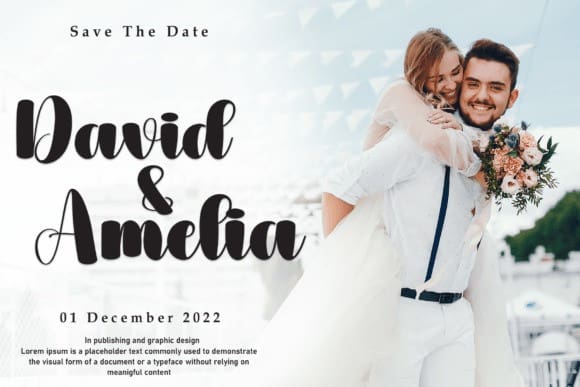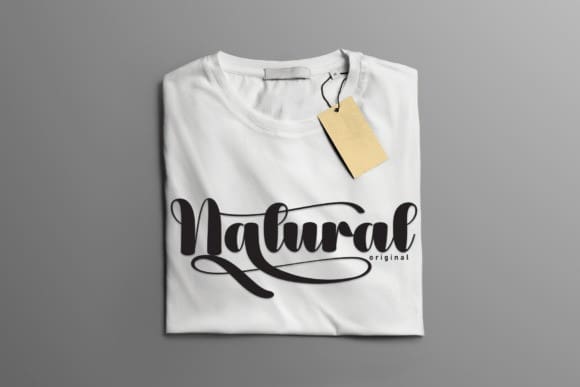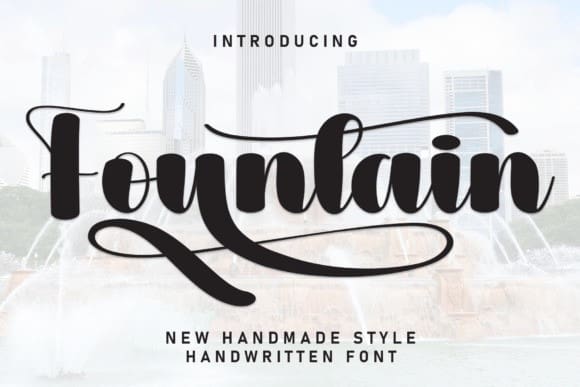
Fountain Script Font
Fountain Script Font a graceful and elegant Script & Handwritten typeface that flows like water on paper. With its smooth strokes and delicate curves, this font exudes a sense of beauty and sophistication. Perfect for wedding invitations, feminine branding, and sophisticated designs, Fountain Font adds a touch of charm and romance to your projects. Let the ink of Fountain Font gracefully dance across your canvas and create captivating typography.